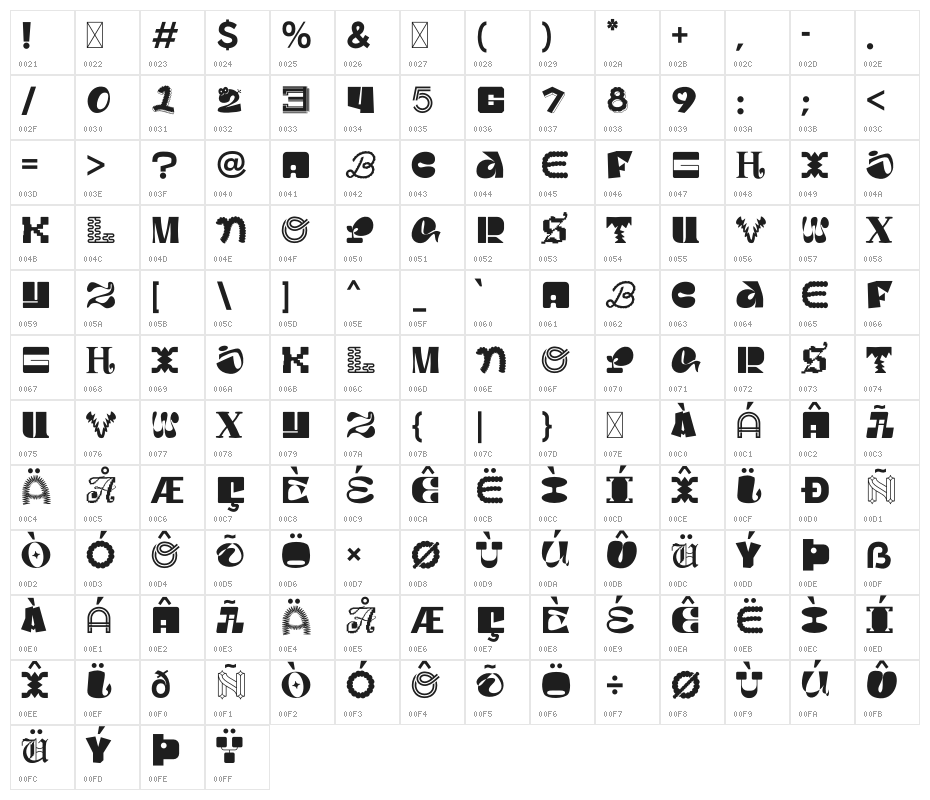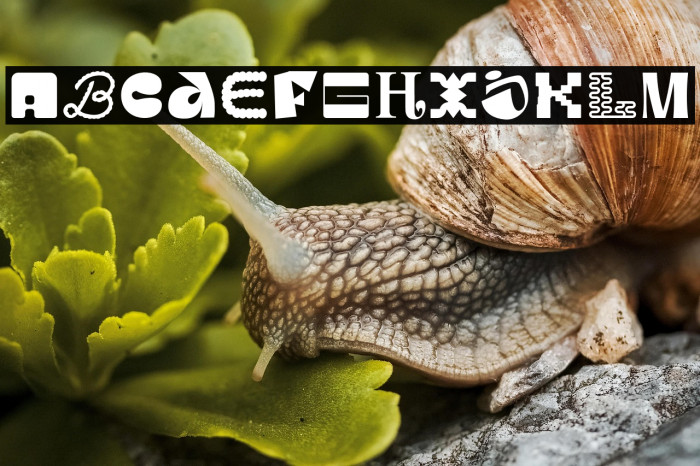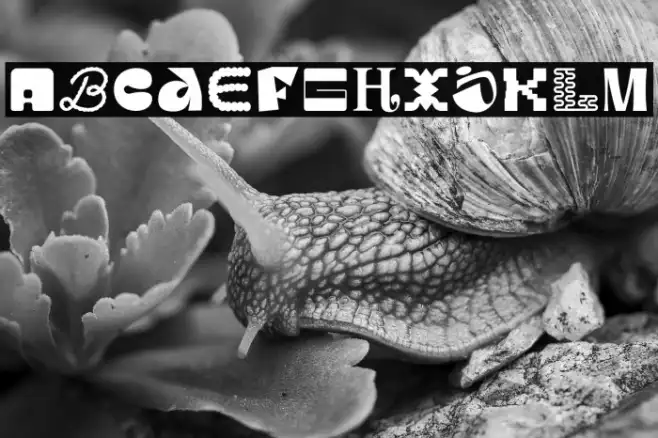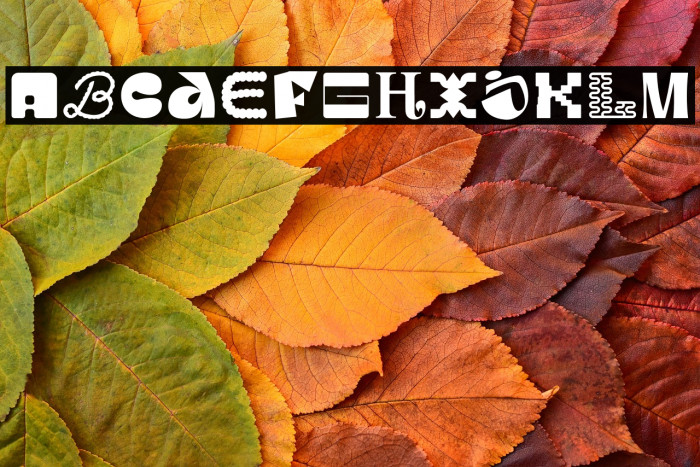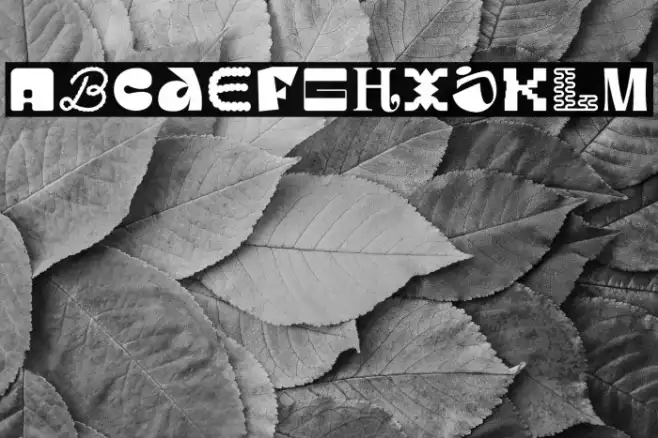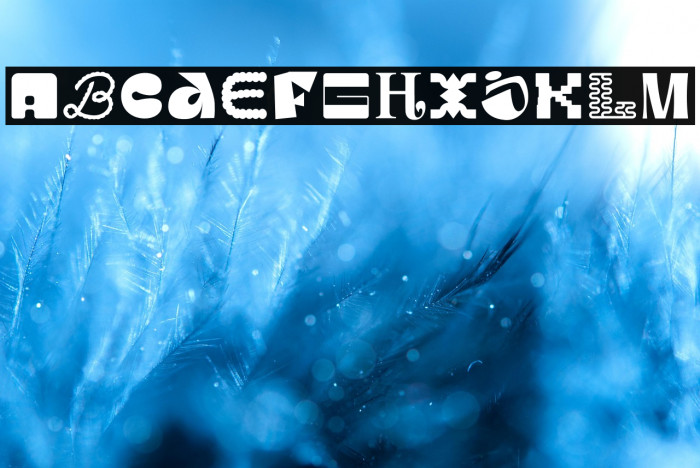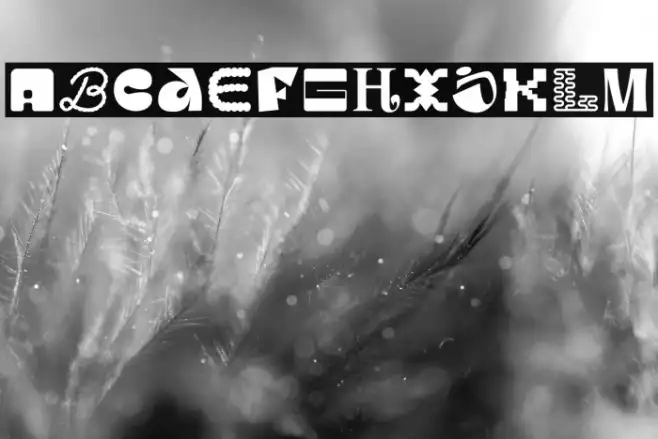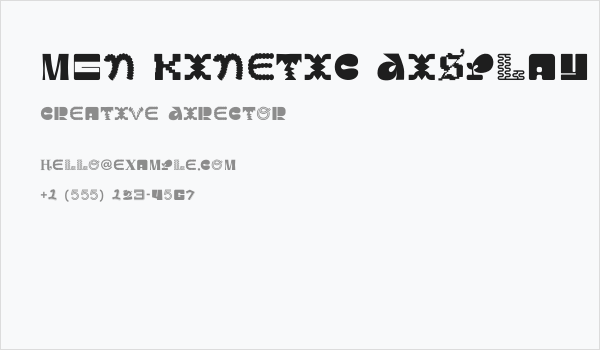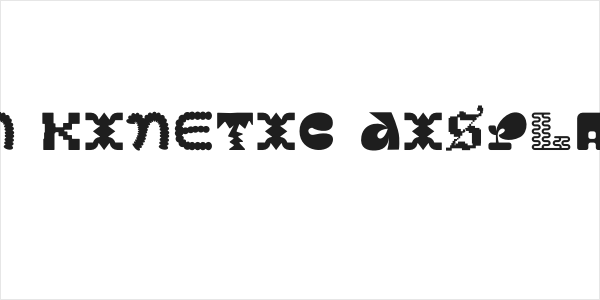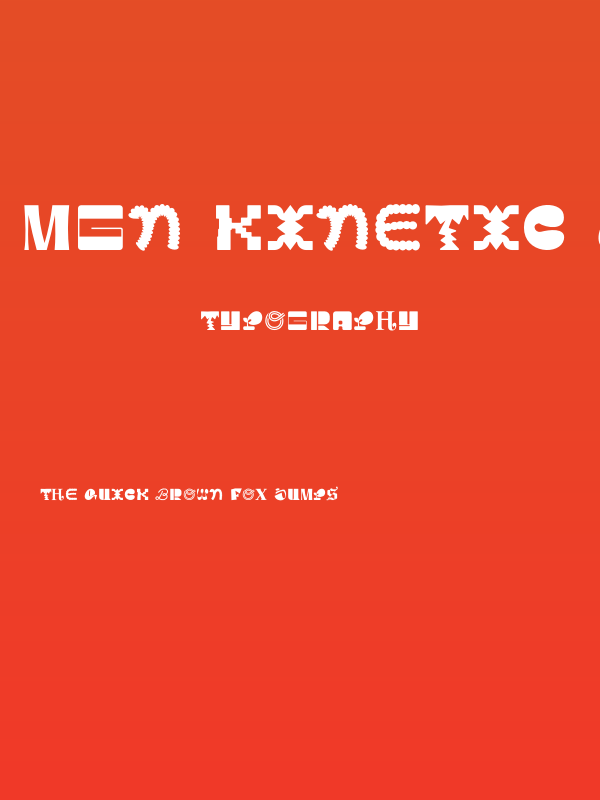
MGN Kinetic Display 5 Font
MGN Kinetic Display 5 Description
This font is a bold and eclectic display typeface that combines a variety of styles and elements, creating a dynamic and eye-catching appearance. Each character is uniquely designed, incorporating geometric shapes, abstract forms, and playful motifs. The uppercase and lowercase letters exhibit a wide range of visual textures, from smooth curves to sharp angles, and intricate patterns. The numbers and special characters continue this theme, offering a diverse and visually engaging set. This font is ideal for projects that require a strong visual impact and a sense of creativity and fun.
| Proposed Projects | Ideal for posters, album covers, branding, and any project needing a bold visual statement. |